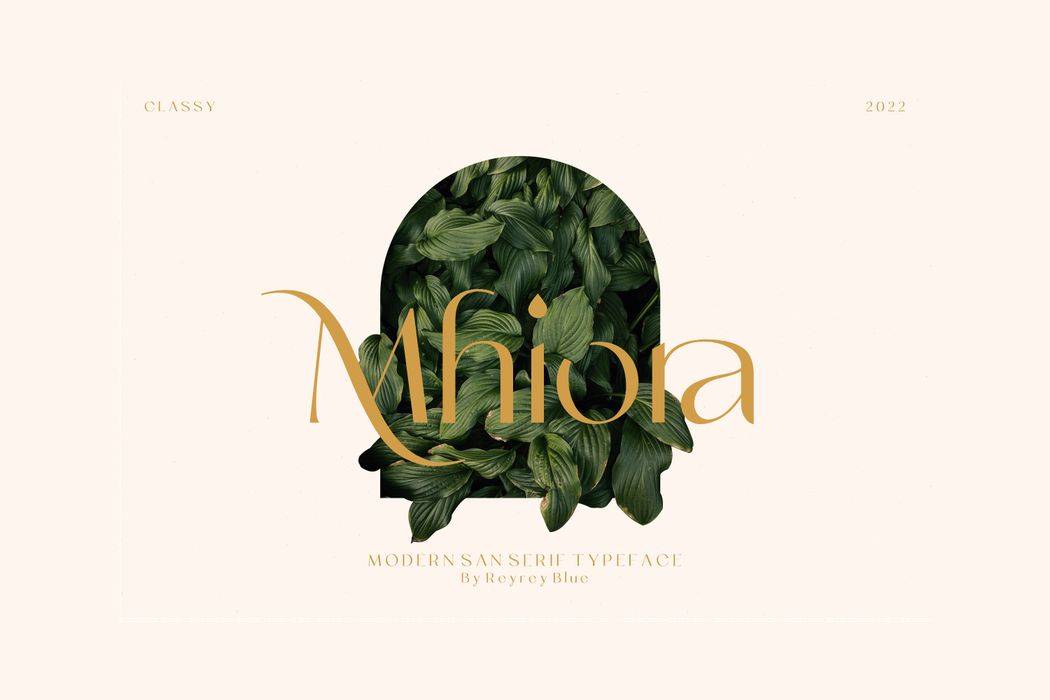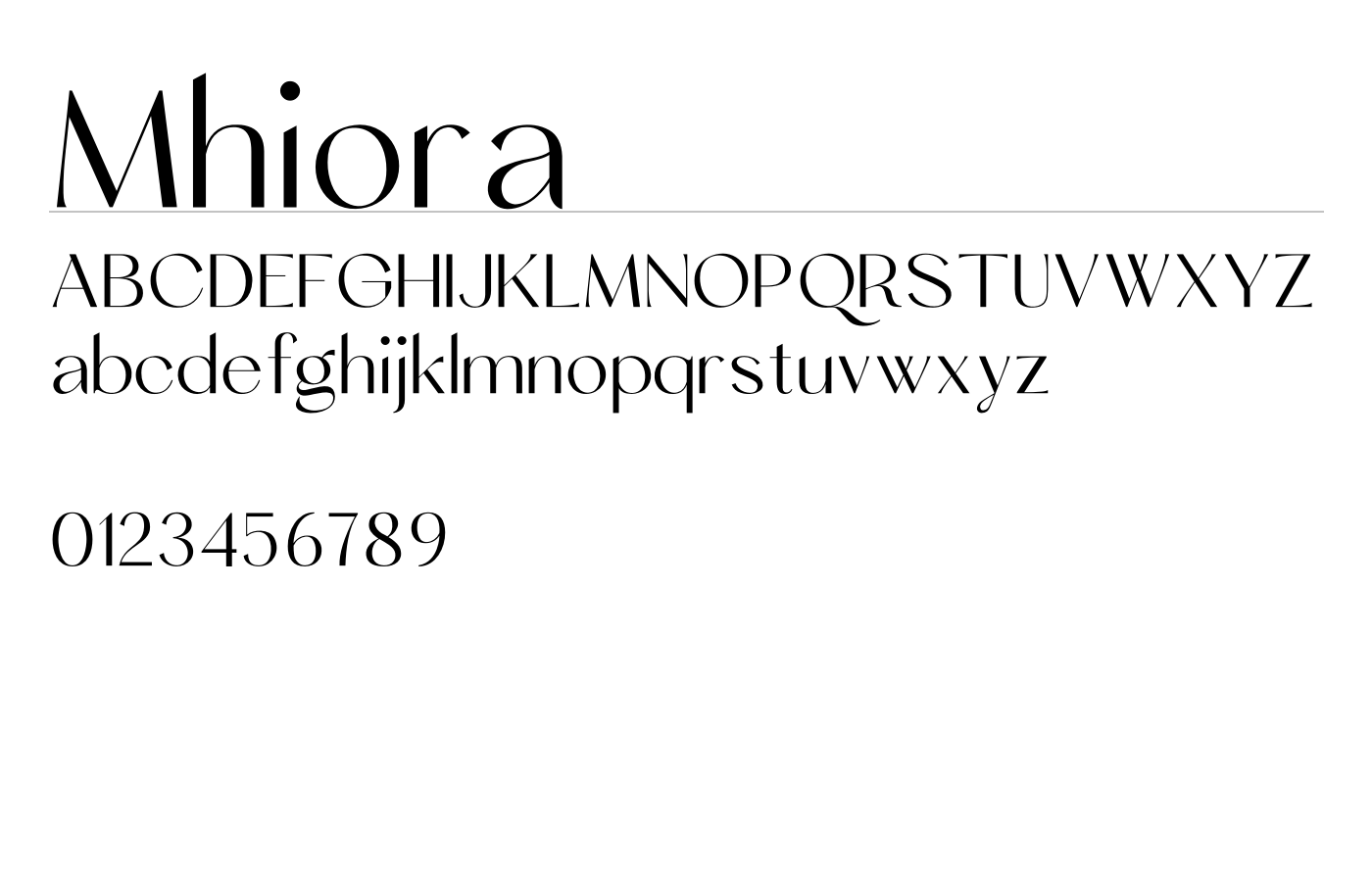
Mhiora is a sophisticated serif font featuring elegant, high-contrast strokes and delicate, sharp serifs that give it a refined, modern look. Its tall x-height, combined with unique letterforms and single-story details, makes it perfect for luxury branding, editorial headlines, and stylish packaging where a sleek, contemporary feel is desired. This font’s graceful yet distinctive character adds a touch of elegance to any upscale design project.
Mhiora Font
About Mhiora Font
| Font family | Mhiora Font |
| Designer | Risca Anitawati |